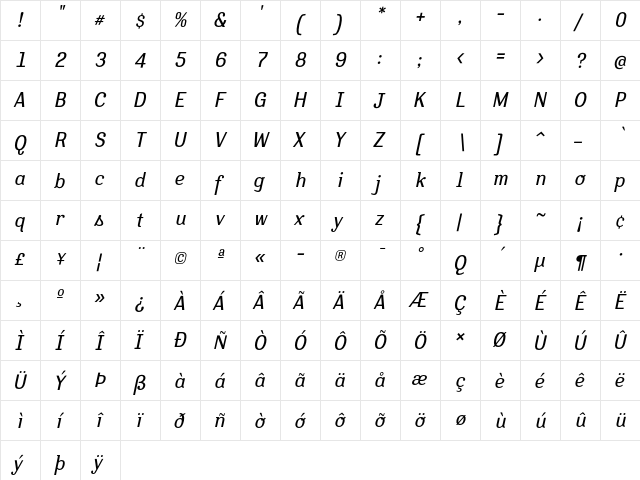
Hydrous Italic
Design Context for Hydrous Typeface
Hydrous is a composed and adaptable typeface that performs quietly and consistently across a wide range of design contexts. The dynamic lean of this cut emphasises speed and emphasis in any layout.
Pro Tip: Try Hydrous for annotation and caption copy alongside an upright companion — the contrast in angle creates a dynamic but ordered typographic system.